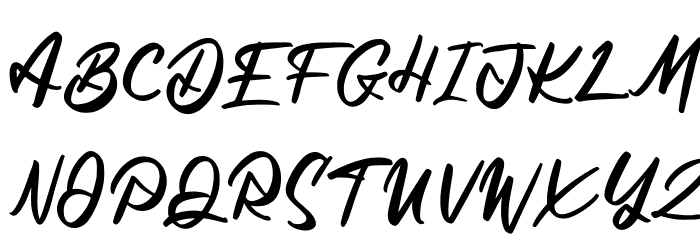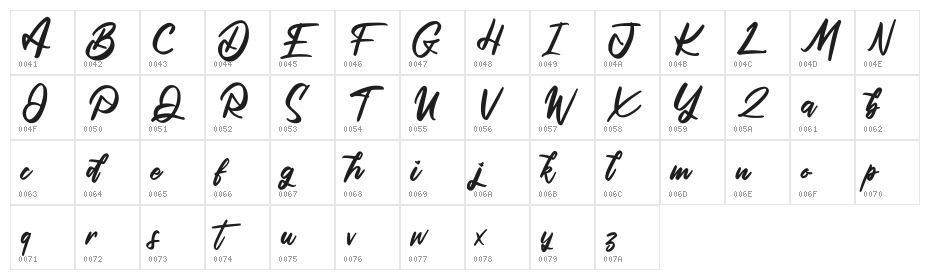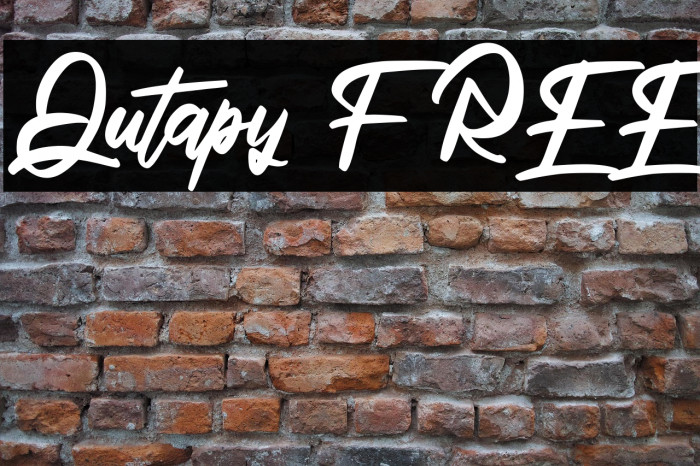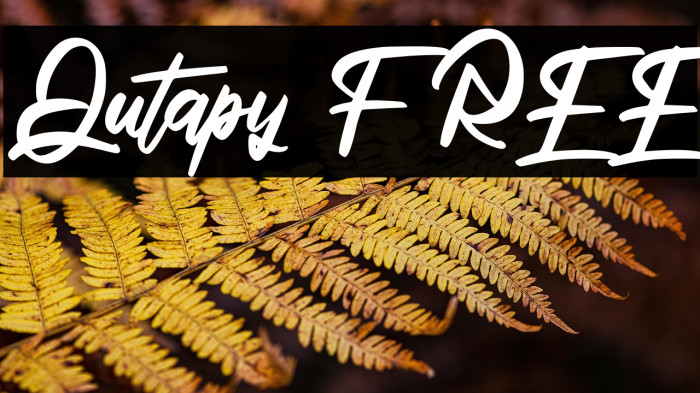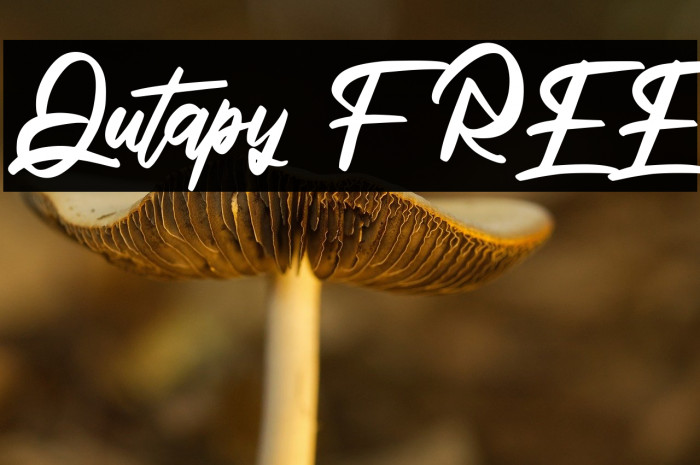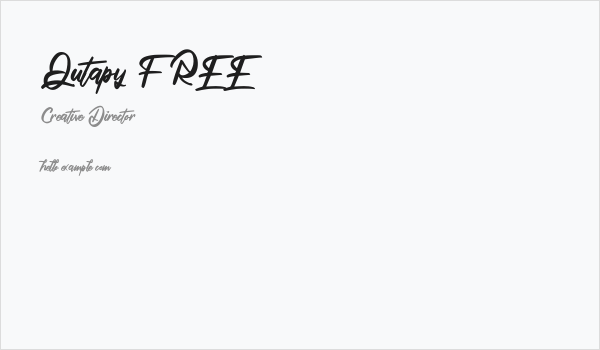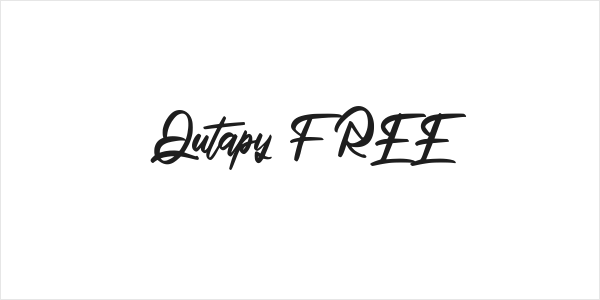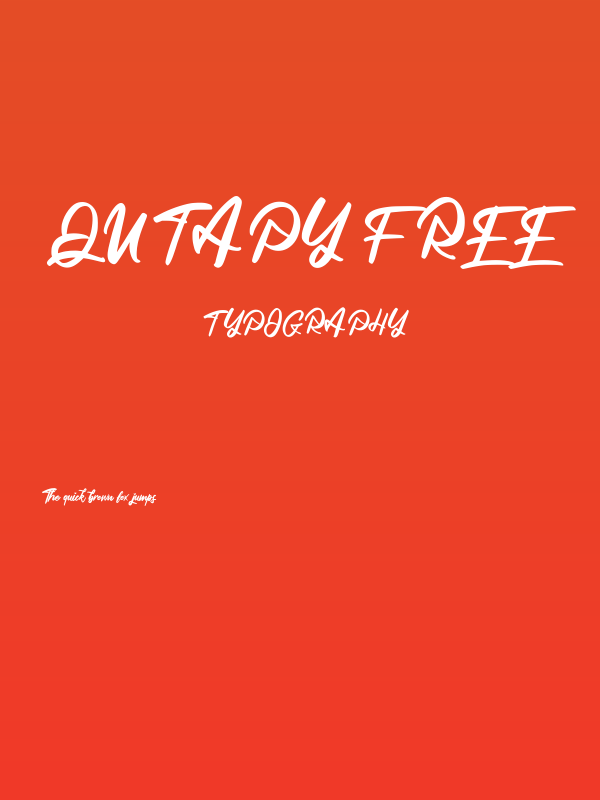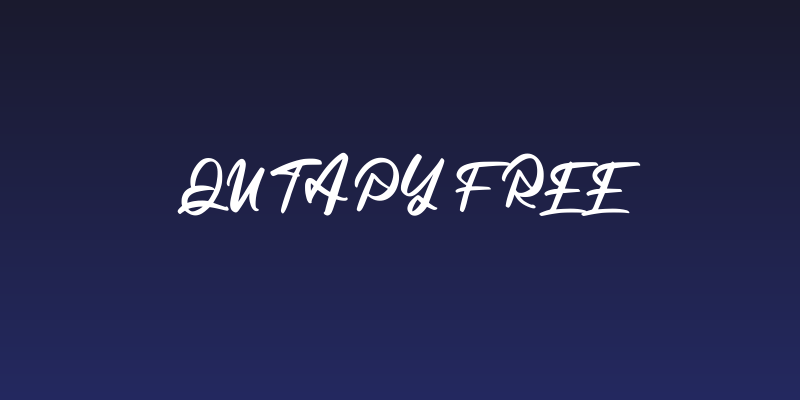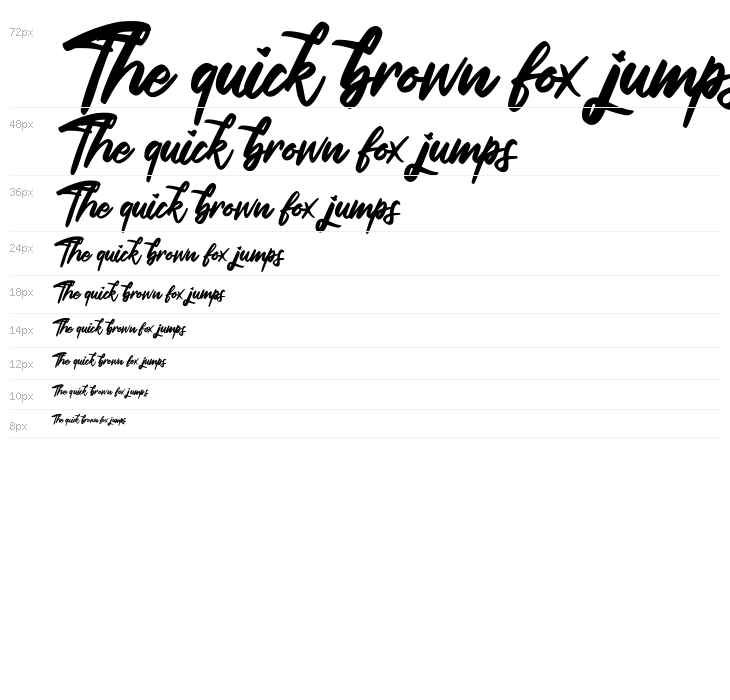
Qutapy FREE Font
Qutapy FREE Description
This font features a bold and expressive script style, characterized by its fluid and dynamic strokes. The uppercase letters exhibit a sense of movement and flair, with each character seamlessly connecting to the next. The lowercase letters maintain this fluidity, offering a harmonious and cohesive look. The font's design is both modern and playful, making it suitable for a variety of creative applications. Its bold weight and high contrast between thick and thin strokes add to its visual impact, ensuring that it stands out in any design.
| Proposed Projects | Ideal for branding, logos, invitations, and creative headlines. |